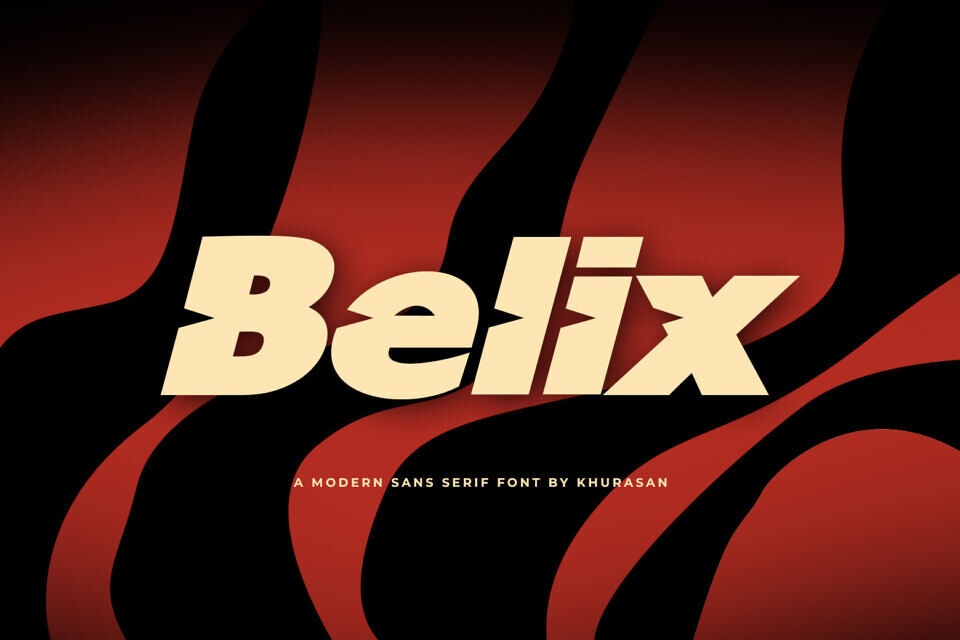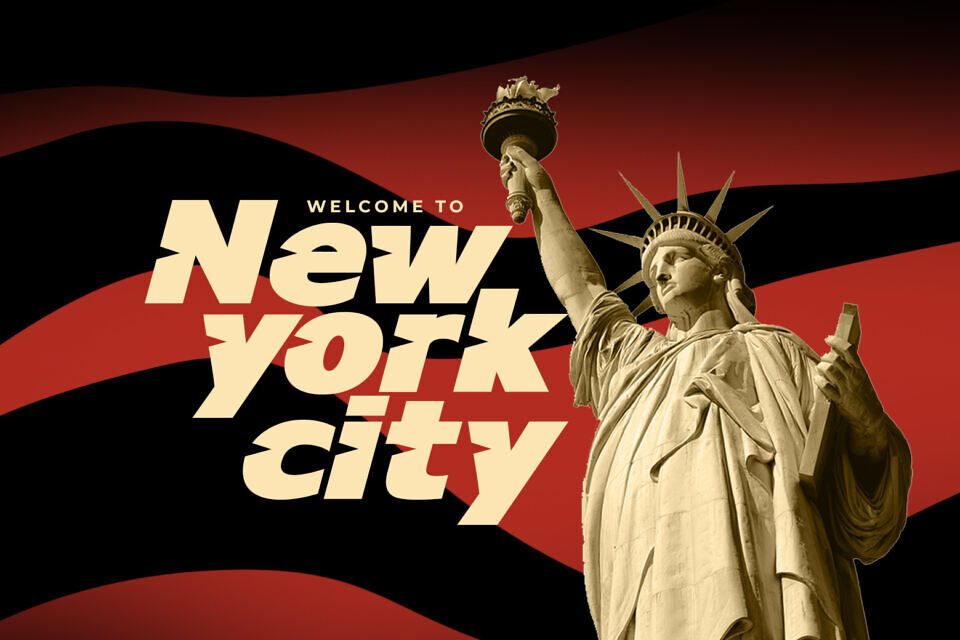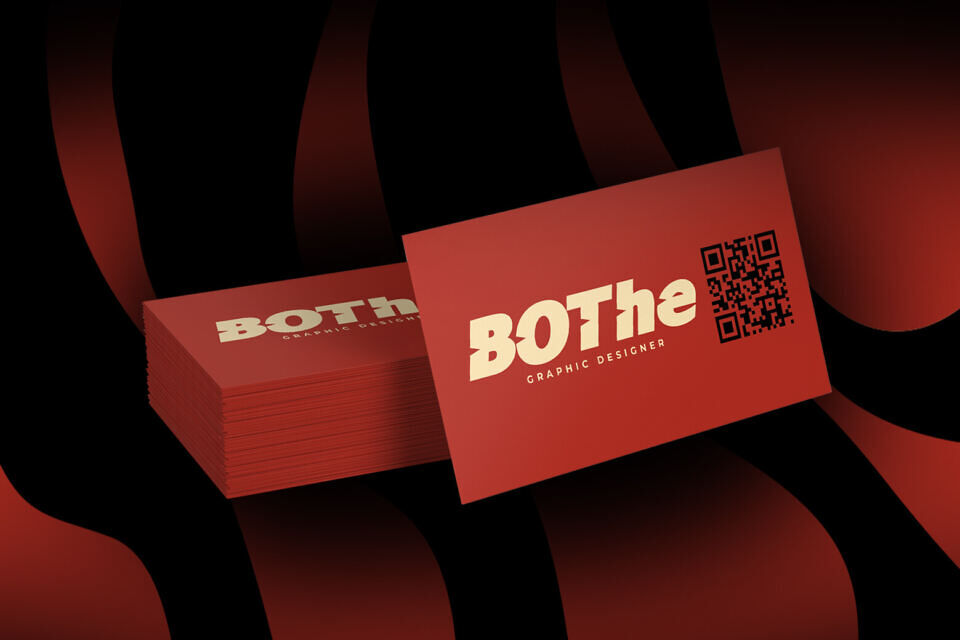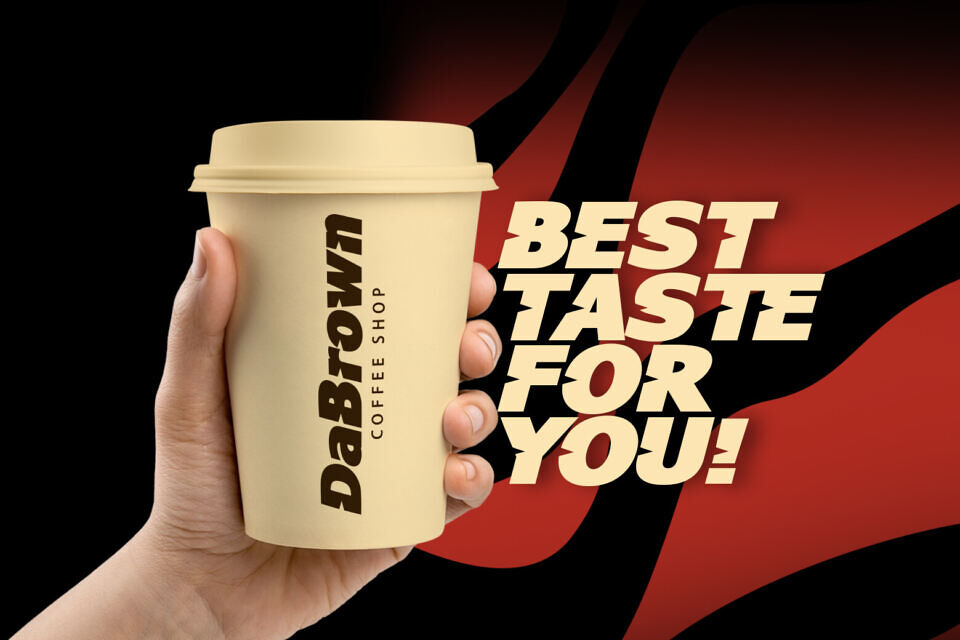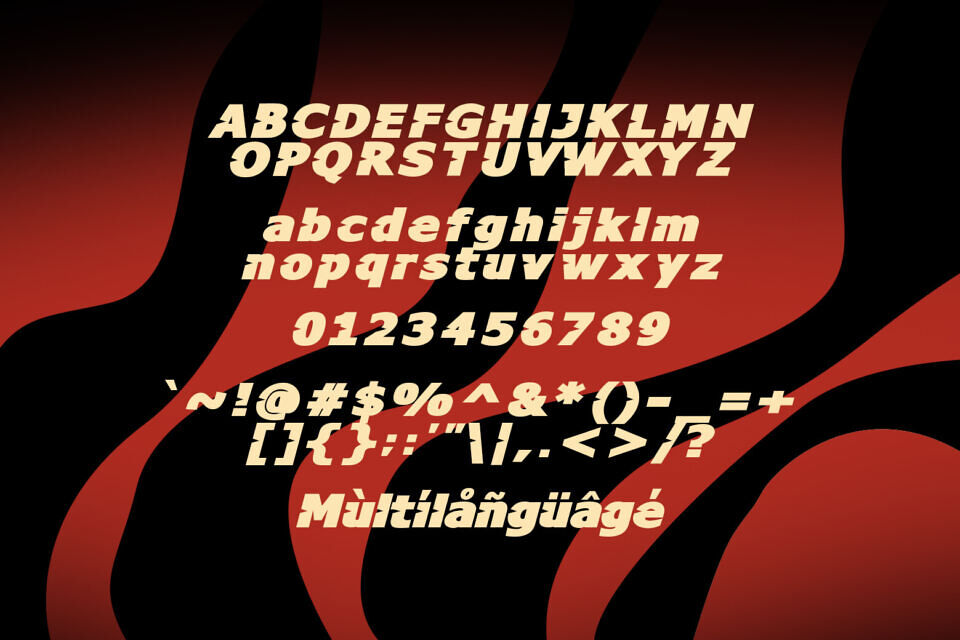
Belix Font
Belix is a modern & unique bold sans serif font with truncated font style. This font perfect for posters, logos, magazines, book covers, banners, and many more! Get this quirky handwritten font, and use it to create lovely designs!
Designed by: Khurasan (Syafrizal)